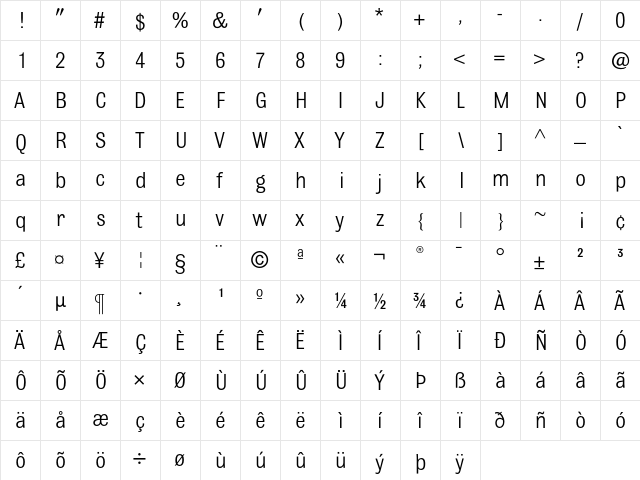
Bulldog Medium
Design Context for Bulldog Typeface
Bulldog offers clean, dependable letterforms without strong stylistic allegiance, making it a practical choice for designers who need flexibility.
Pro Tip: Pair Bulldog with a font of contrasting weight or personality to build a more expressive typographic hierarchy.